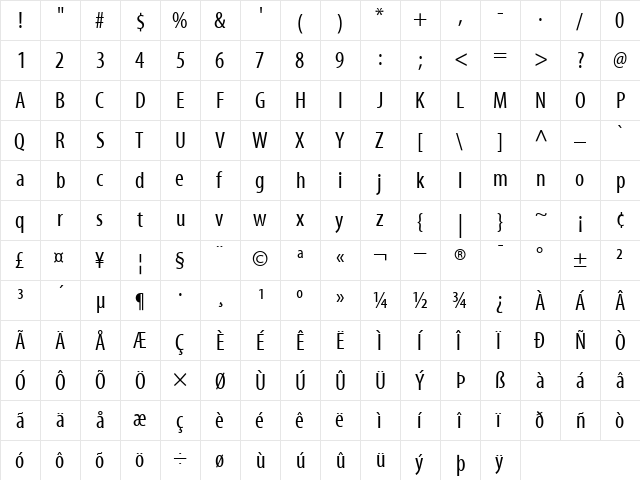
Myriad-Condensed Roman
Design Context for Myriad-Condensed Typeface
Myriad-Condensed takes a measured approach to typography — its balanced proportions and neutral character make it a reliable workhorse for both digital and print work. The condensed width makes it efficient for tight spaces without sacrificing legibility.